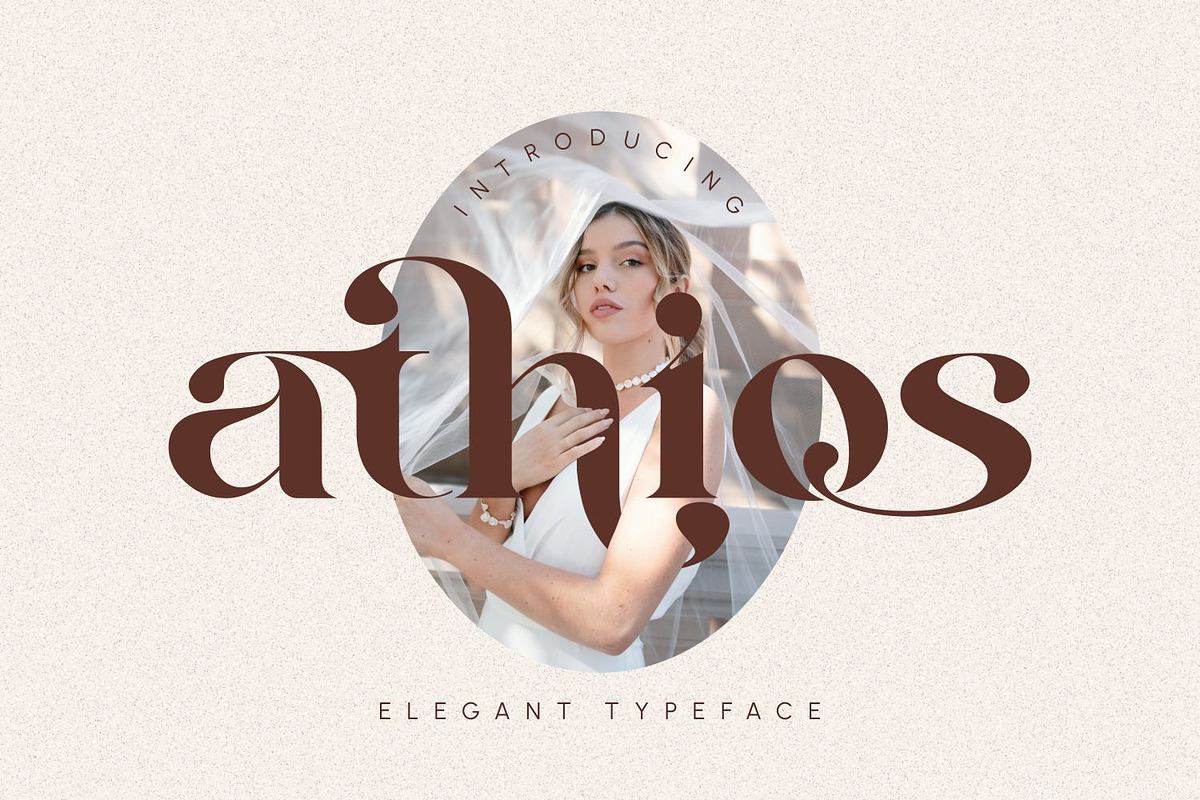
Athios - Elegant Typeface Free Download is a refined and sophisticated typeface designed to bring elegance and style to your designs. With its smooth curves, balanced proportions, and timeless aesthetic, Athios is perfect for luxury branding, editorial design, wedding invitations, logos, and more.
The graceful lines and delicate detailing make Athios ideal for upscale projects, where both clarity and beauty are key. Whether you’re working on a fashion brand, crafting elegant marketing materials, or designing for a high-end event, Athios elevates your typography with its classic, luxurious charm.